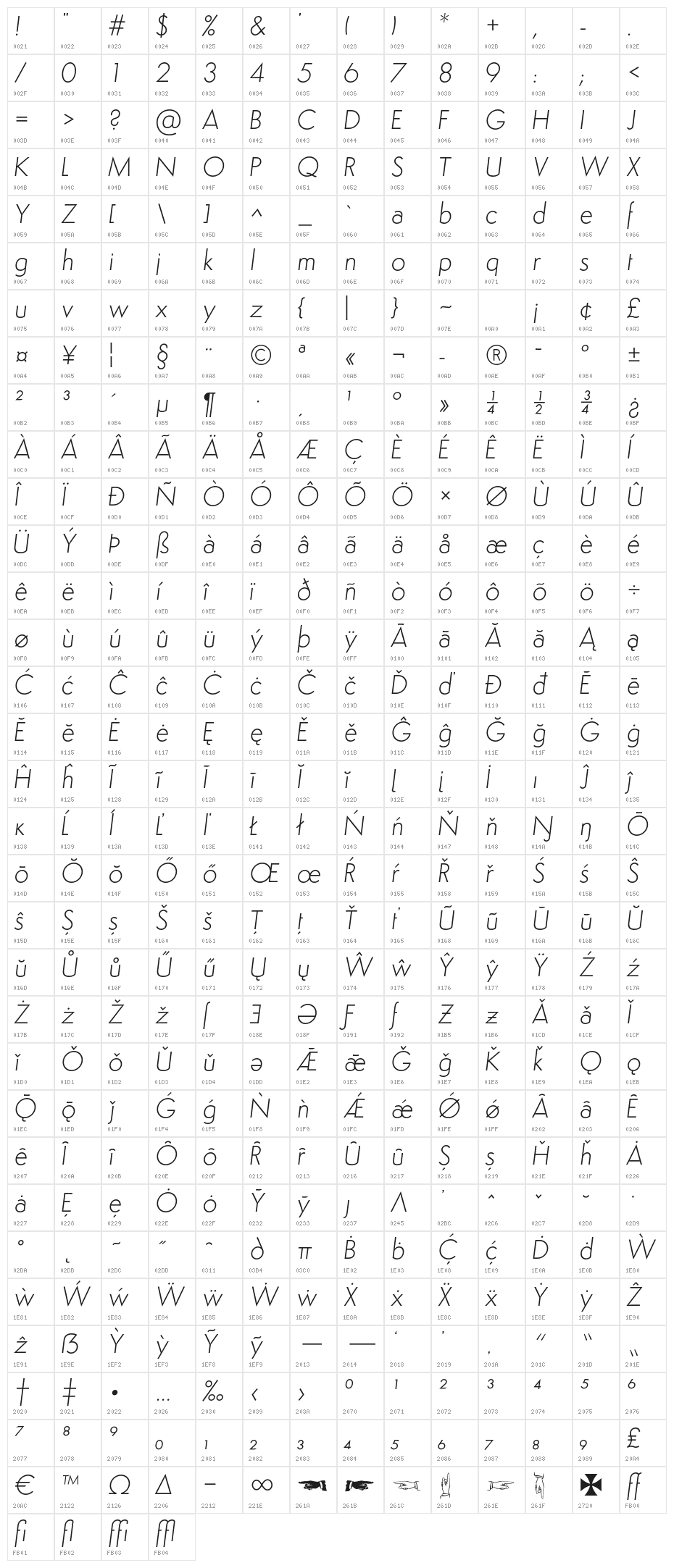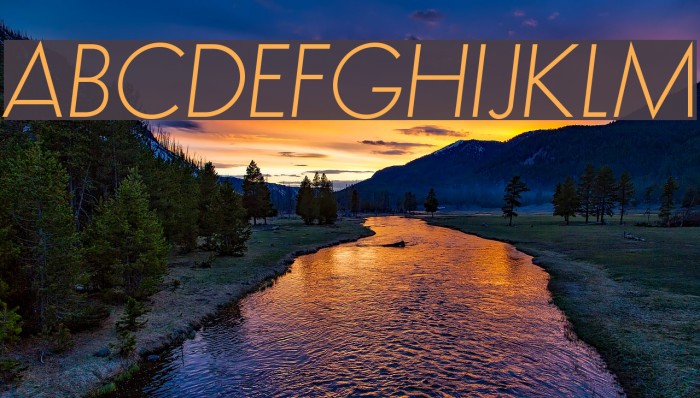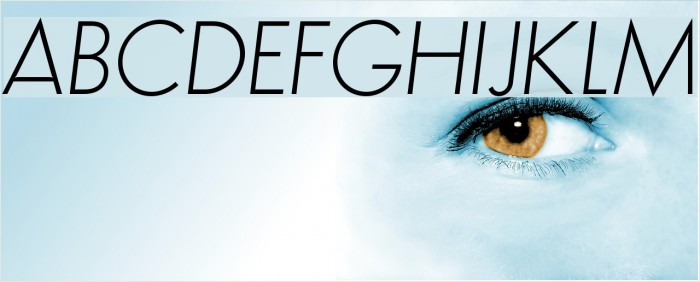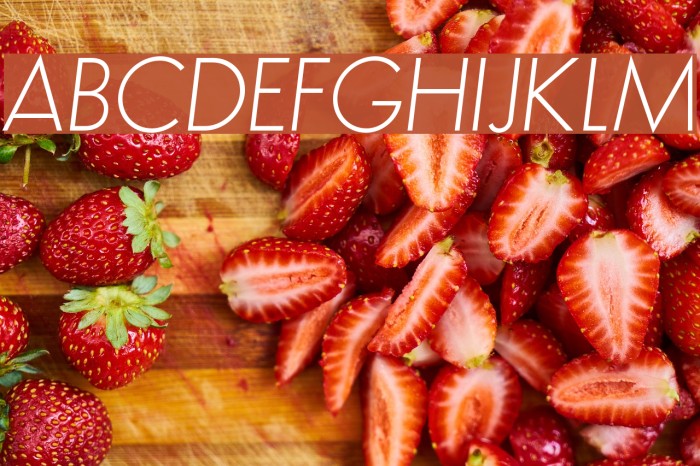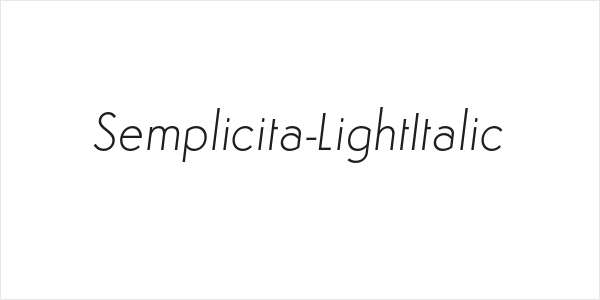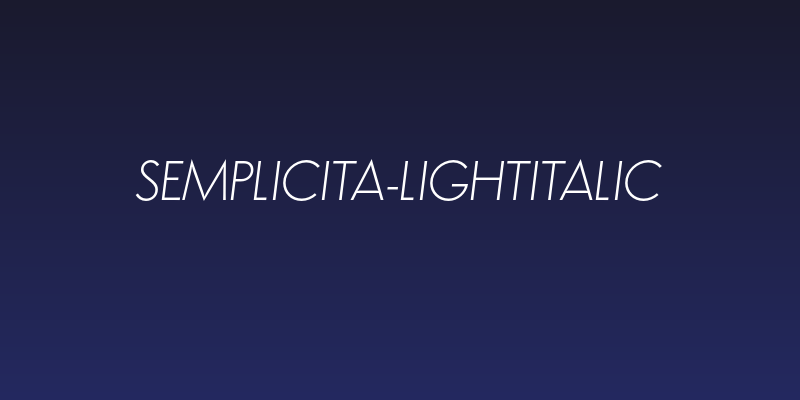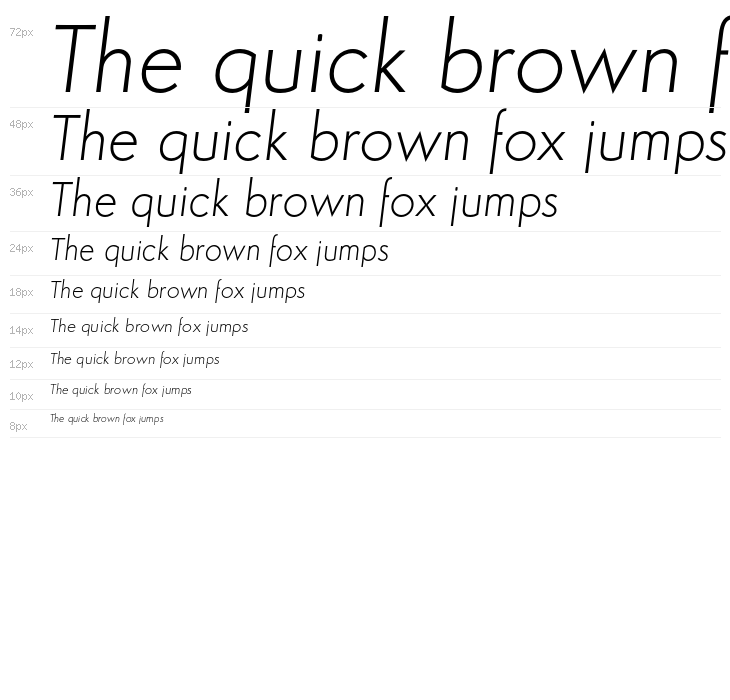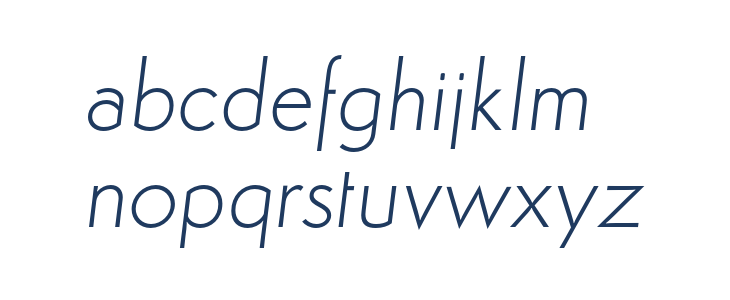
Semplicita-LightItalic Font
Semplicita-LightItalic Description
This font features a sleek and elegant design with a light and airy appearance. The characters are slightly slanted, giving it an italicized look that adds a sense of motion and fluidity. The strokes are thin and consistent, contributing to a modern and sophisticated aesthetic. The uppercase and lowercase letters are well-proportioned, and the numerals are clear and easy to read. Special characters are included, maintaining the font's overall style. The design is minimalistic, making it versatile for various applications.